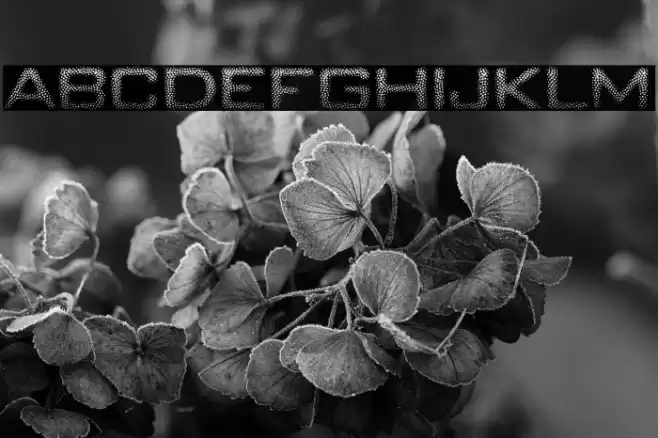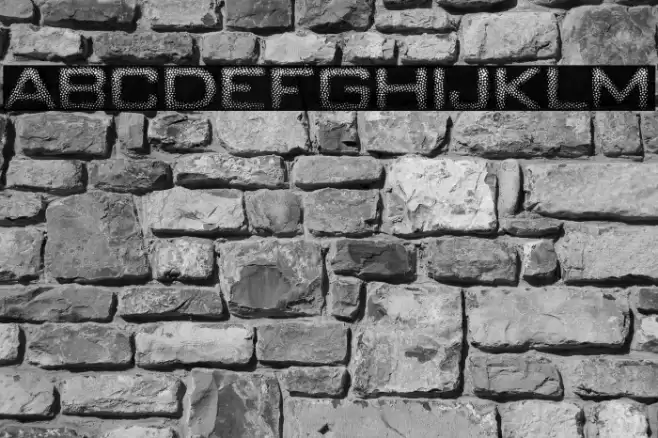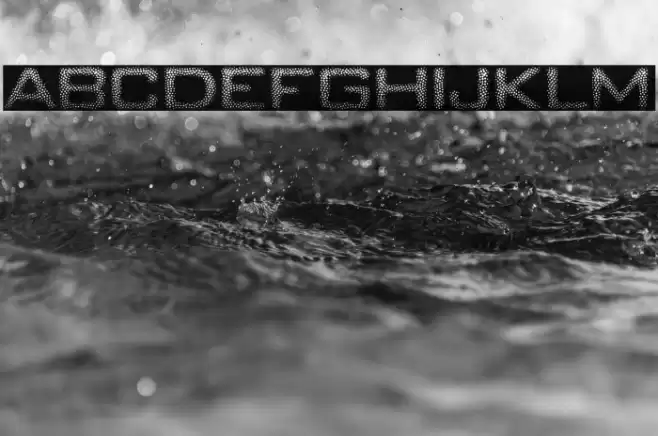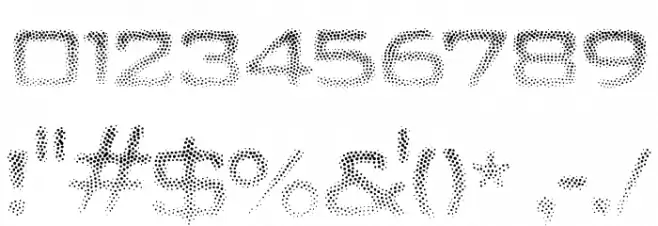
Unity Dances Font
Unity Dances Description
This font features a unique dotted pattern that creates a visually striking effect. The characters are formed by a series of small dots, giving it a textured appearance. The uppercase and lowercase letters maintain a consistent style, with clean lines and geometric shapes. The numbers and special characters follow the same design, ensuring uniformity across all elements. This font is ideal for projects that require a modern and innovative look, as its distinct style can capture attention and add a creative flair to any design.
A modern, dotted font with a unique textured appearance from Distorted Eroded fonts.
- Proposed Projects: Ideal for digital art, posters, branding, and creative advertising campaigns.